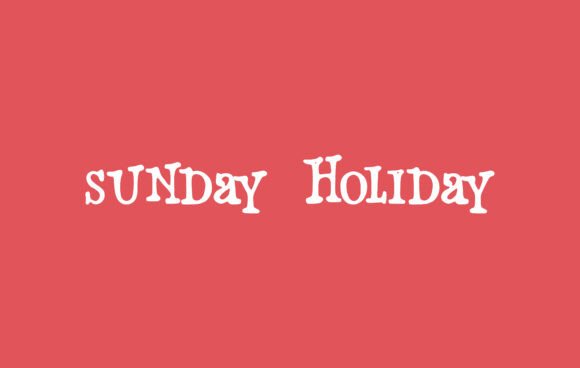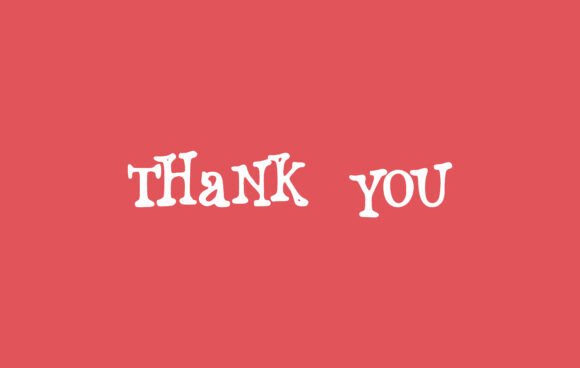
The Bryan Font: A Romantic Touch for Your Creative Projects
Have you ever been in the middle of a design project, pouring your heart and soul into it, only to get stuck on one thing: the font? I certainly have. It was a wedding invitation design project, and I was determined to find the perfect font that would capture the essence of the couple’s special day. After hours of scrolling through font libraries, I stumbled upon the Bryan Font. And let me tell you, it was love at first sight! 💕
A Personal Review: What I Love About Bryan Font
The Bryan Font is an authentic handwritten font with a romantic touch, expertly designed to be a true favorite among designers. Here are some things I love about it:
- ✨ Legibility: This font is incredibly easy to read, making it perfect for both title and body text.
- ✅ Versatility: It looks great in various design applications, from magazine headlines to social media posts, branding, wedding invitations, and cards.
- 💫 Romantic touch: The font has a unique, handwritten feel that adds a touch of elegance and sophistication to any design.
While the Bryan Font is amazing, there are a few things to keep in mind:
- 🤔 Limited use in very small sizes: While it’s legible, the font’s beauty shines best in larger sizes. Use it for headlines or titles, and consider a simpler font for very small text.
- ⚠️ Not ideal for very formal designs: The font’s romantic and handwritten nature makes it less suitable for very formal or corporate designs.
The Bryan Font was designed with the intention of creating a unique, handwritten font that captures the essence of romance and elegance. The designer aimed to create a font that would be perfect for creative projects, from wedding invitations to social media posts. The result is a beautiful, legible font that adds a touch of sophistication to any design.
| Font Name | Bryan Font |
| What is the Bryan Font best used for? | The Bryan Font is perfect for creative projects, such as wedding invitations, social media posts, branding, and magazine headlines. |
| Is the Bryan Font legible? | Yes, the Bryan Font is incredibly legible, making it suitable for both title and body text. |
| Is the Bryan Font available in different styles? | The Bryan Font comes with various OpenType features and stylistic alternates, allowing for a range of design possibilities. |